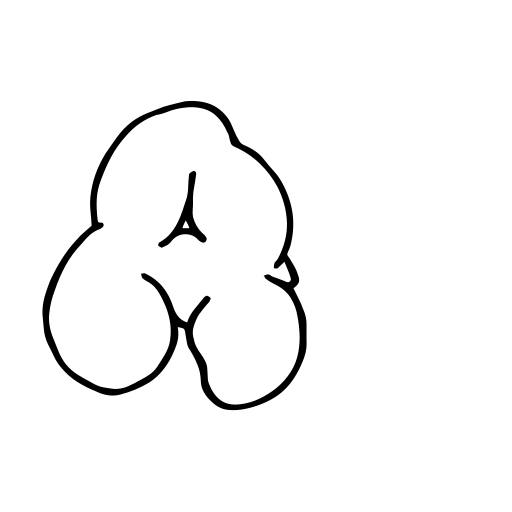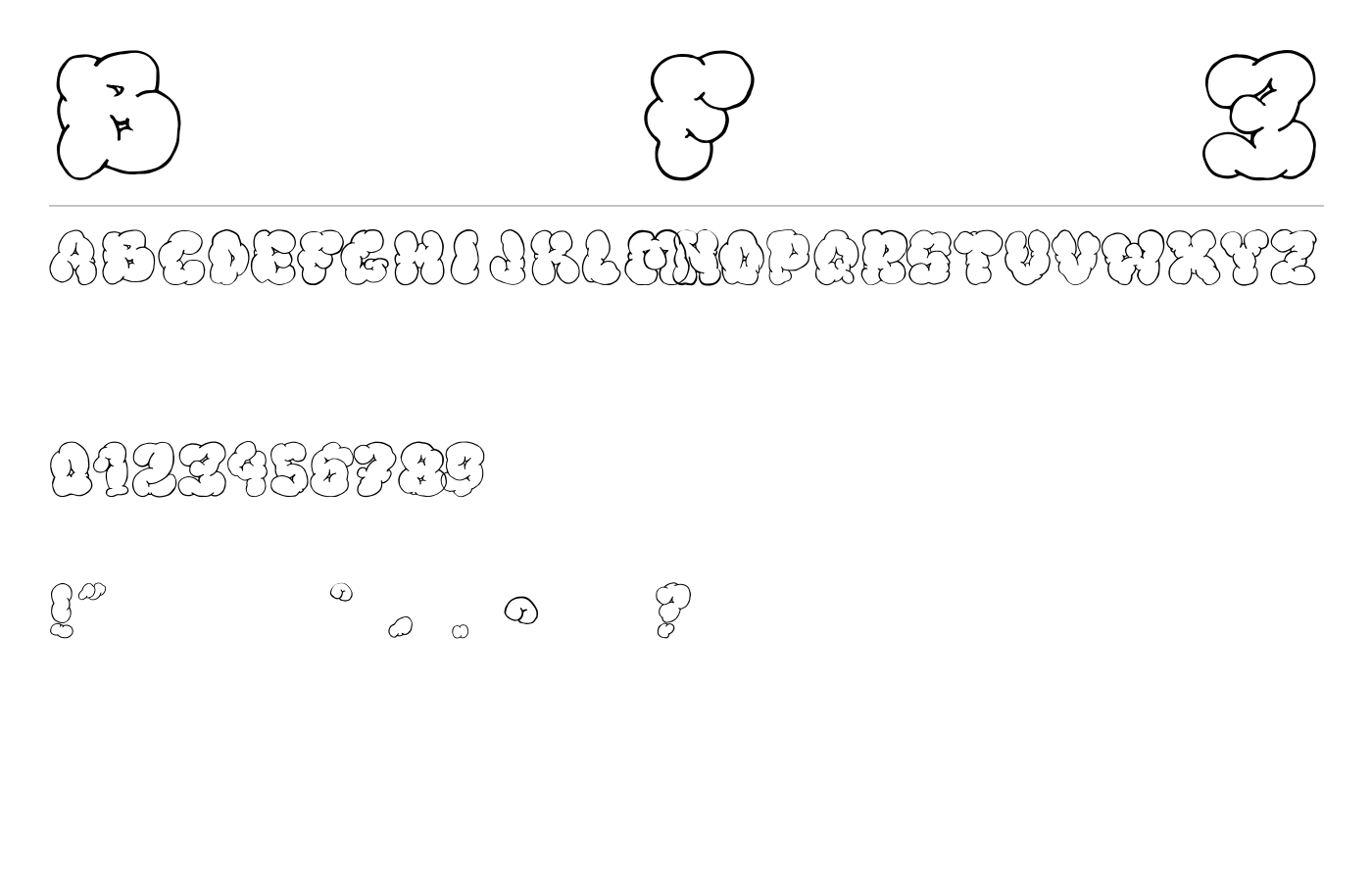
Bigardo Fanzine 3 is a playful and bubbly display font featuring rounded, puffy letterforms that resemble soft clouds or foam. Its casual, hand-drawn style with uneven outlines gives it a fun, youthful vibe, making it ideal for creative projects, informal headings, posters, and branding aimed at a lively and energetic audience. This font works best where a whimsical and eye-catching look is desired.
Bigardo Fanzine 3 Font
About Bigardo Fanzine 3 Font